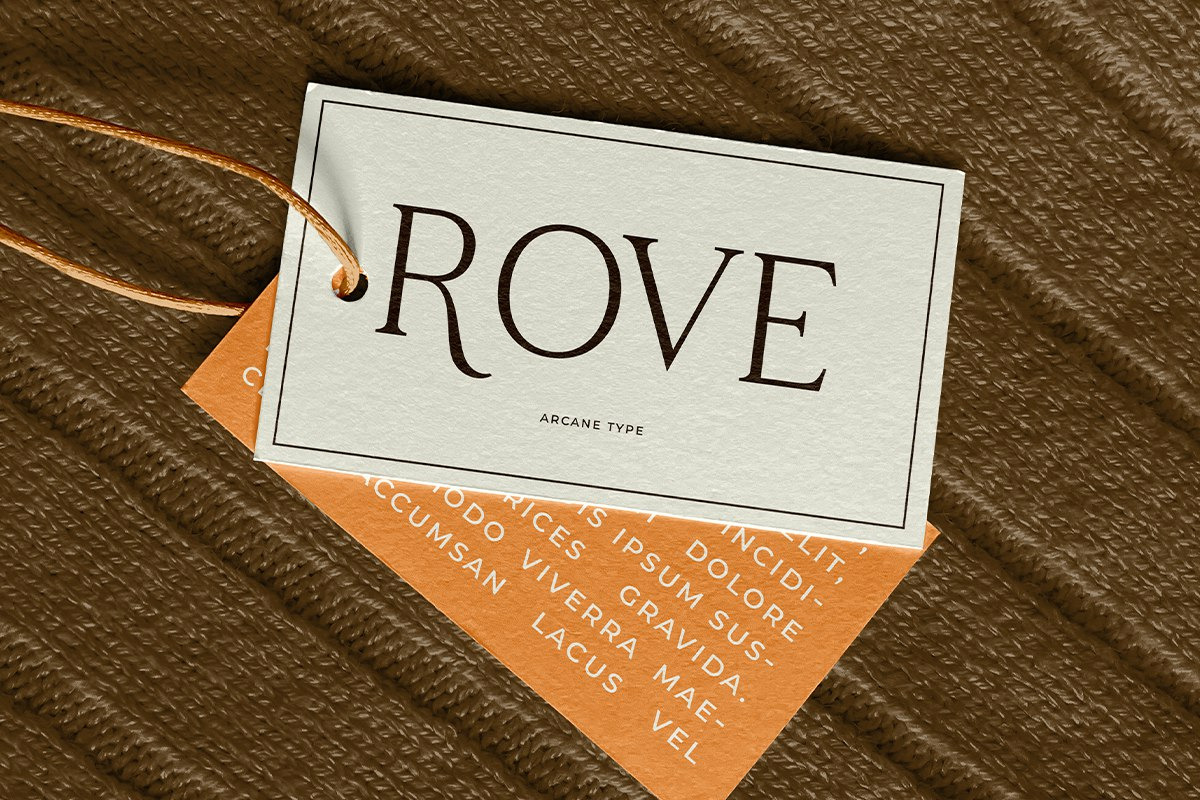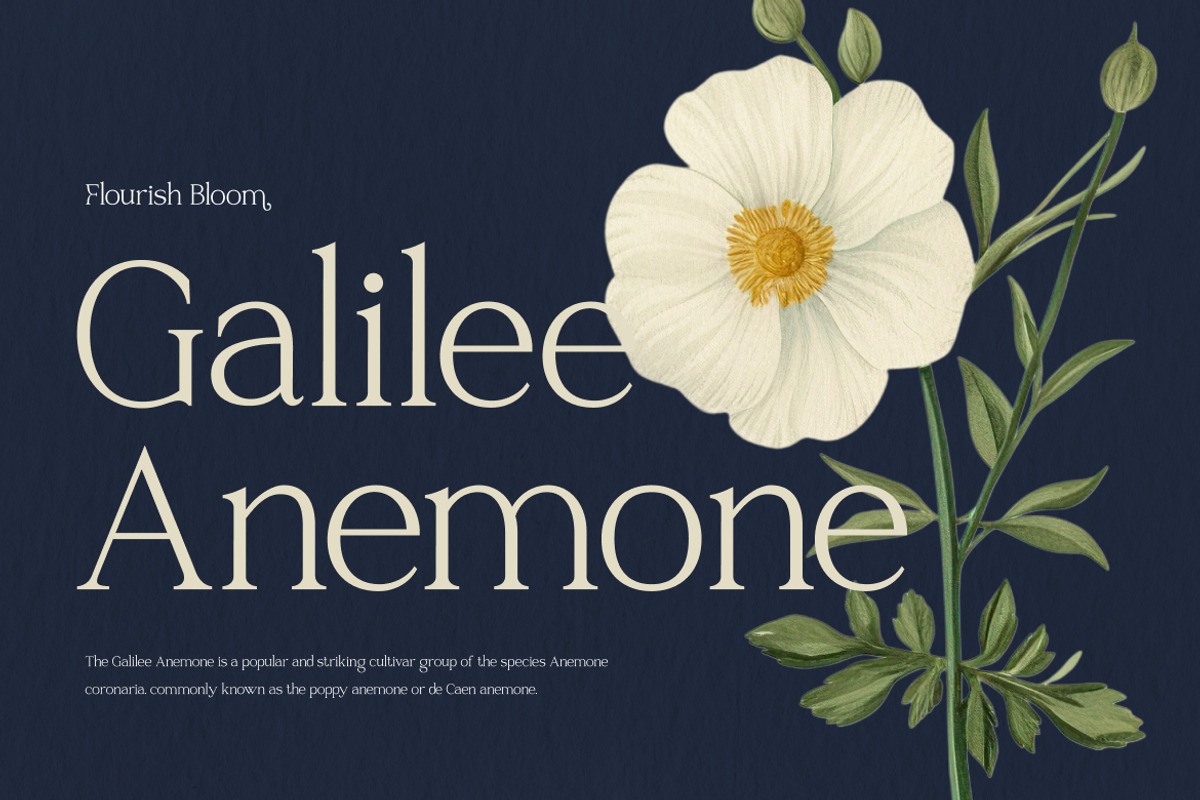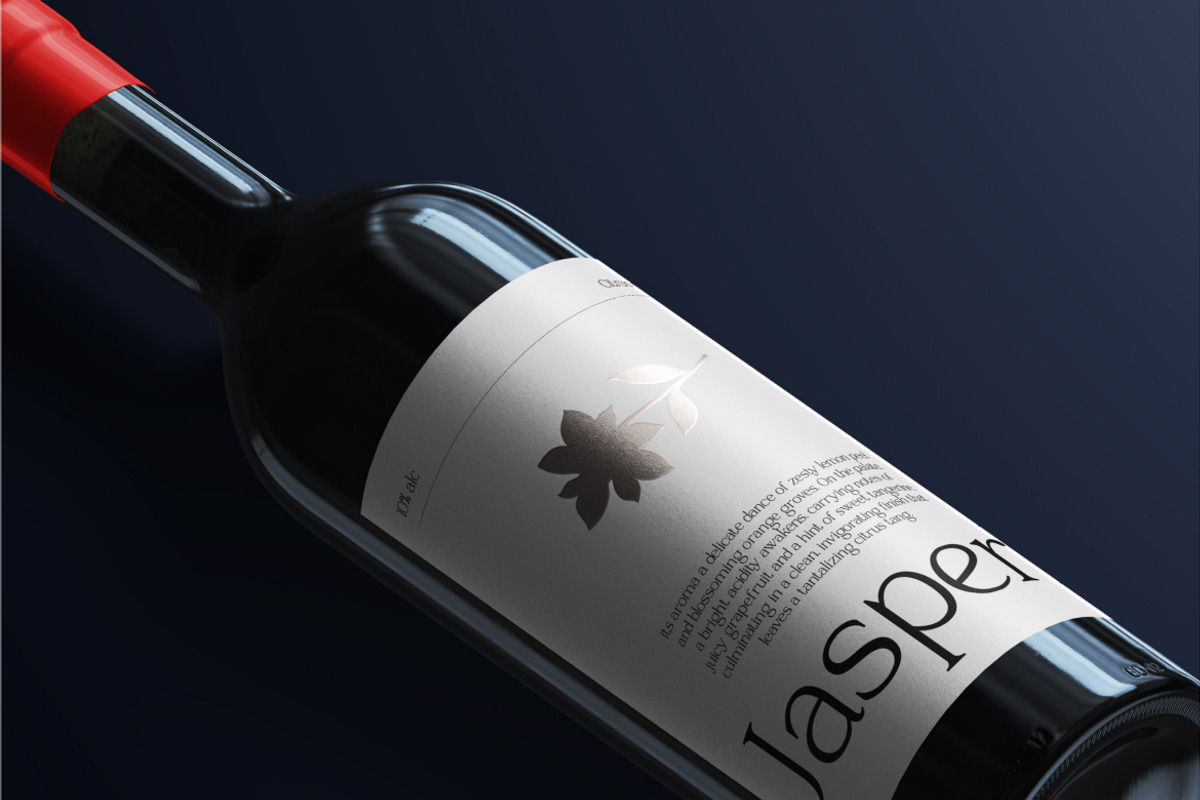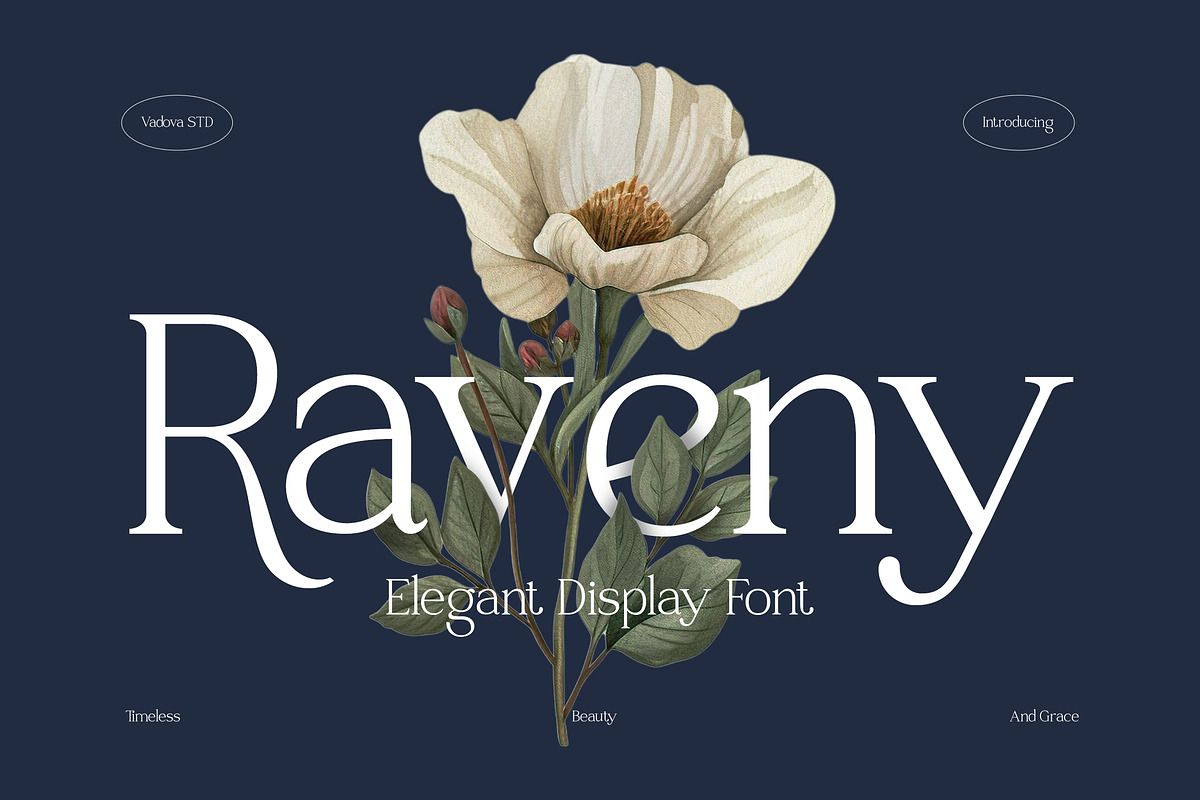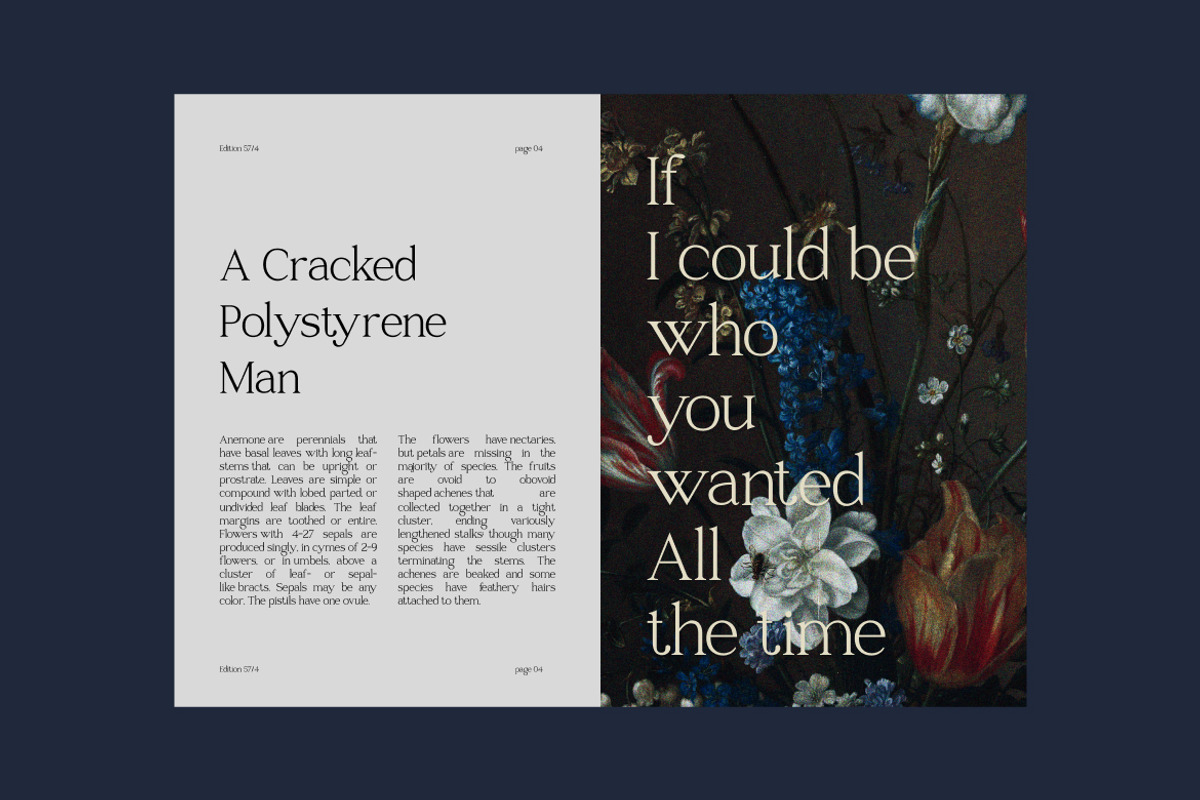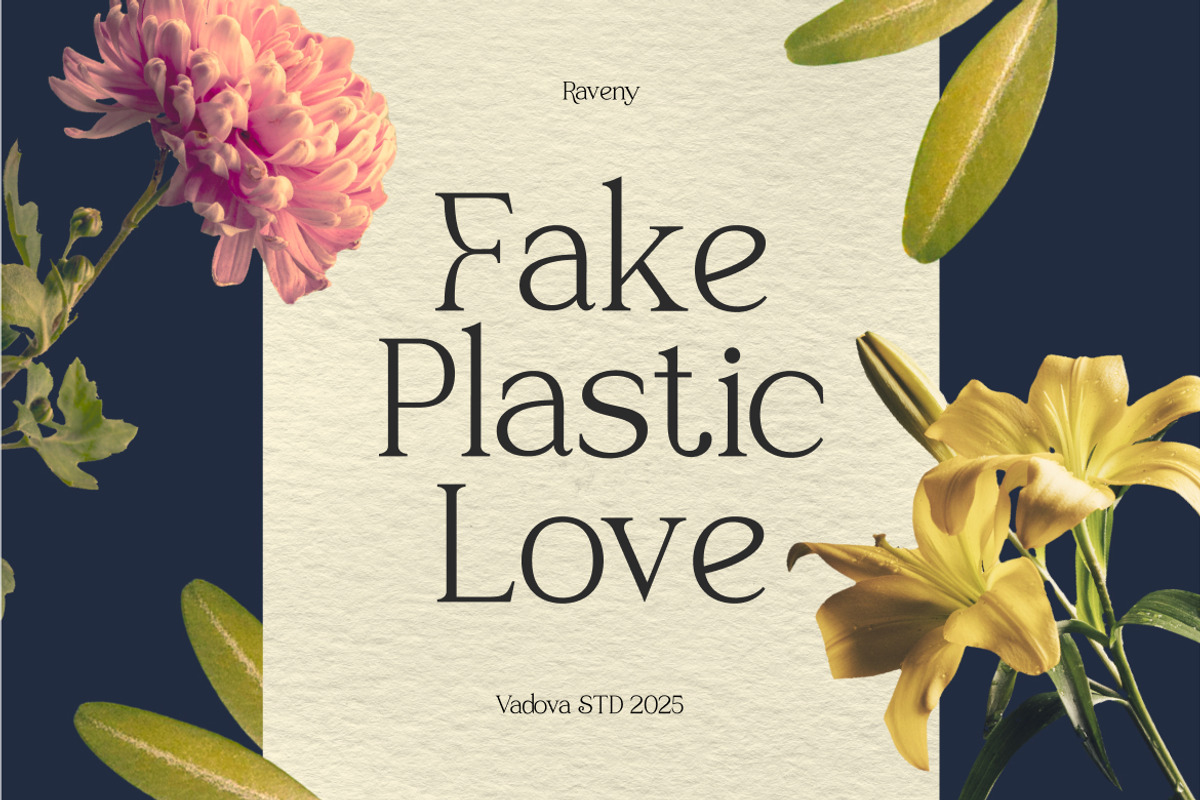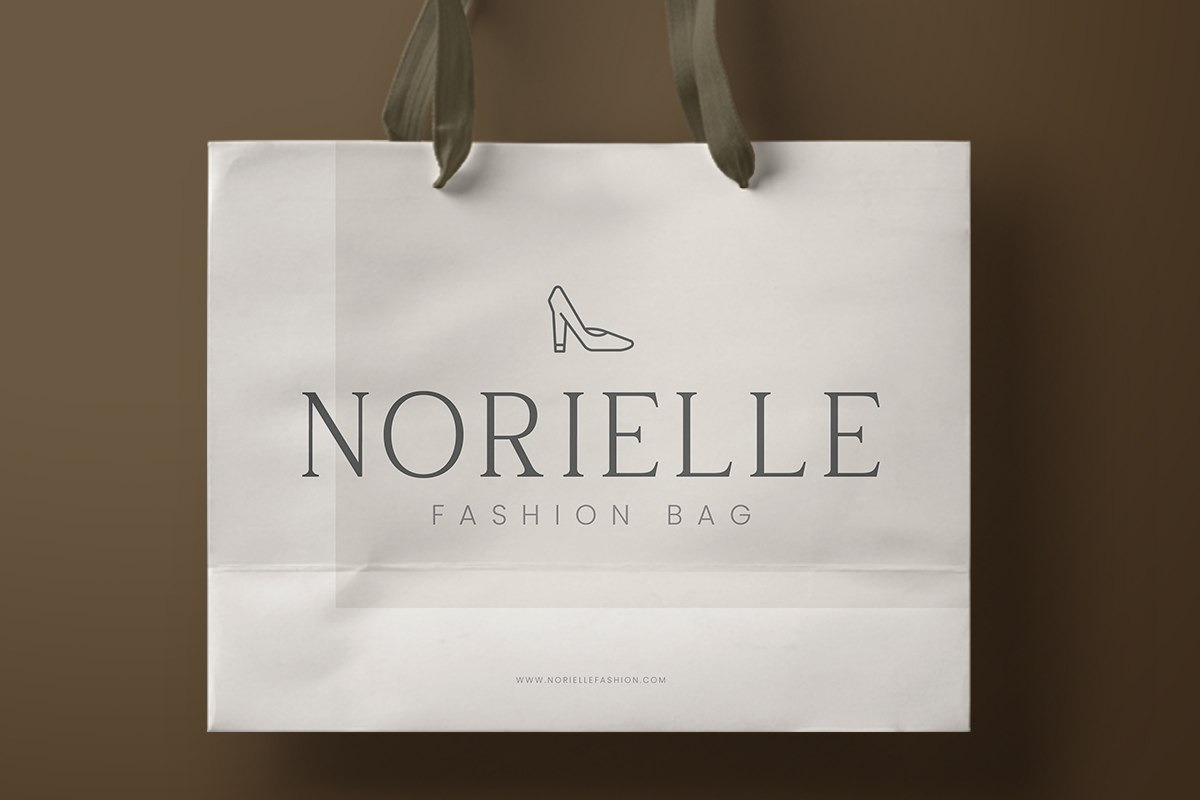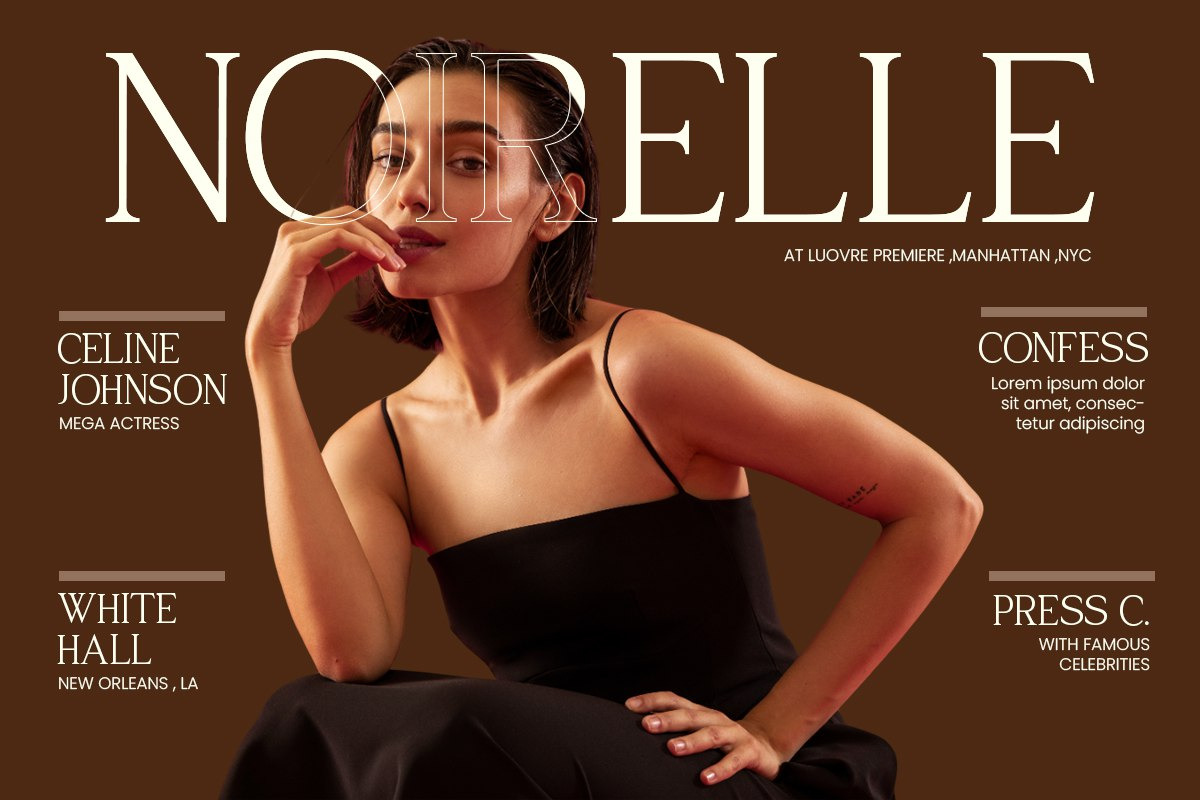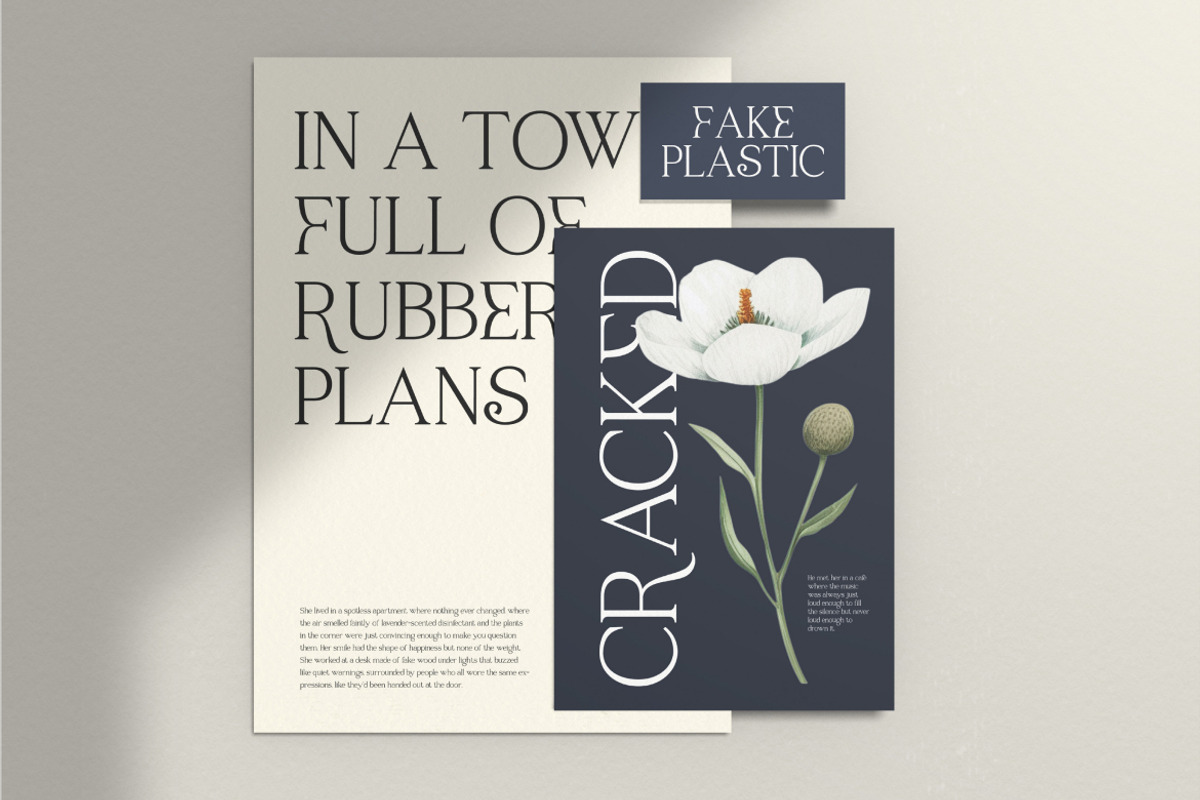
Raveny Modern Elegant Serif
Step into the world of timeless elegance with Raveny, a modern serif font that combines the grace of classic typography with the freshness of contemporary design. Each letterform is carefully crafted to exude refinement, beauty, and confidence, making Raveny the ultimate choice for designers who want to create a lasting impression.
What Makes Raveny Special:
Timeless charm – inspired by the elegance of classic serif lettering.
Modern refinement – clean lines balanced with graceful curves.
Versatile elegance – strong in headlines, delicate in branding.
Premium feel – perfect for projects that demand sophistication.
Best Uses for Raveny:
Luxury fashion branding & beauty identity
Editorial design, lifestyle magazines & books
Wedding invitations, save-the-date & stationery
Elegant logo design & monogram projects
High-end packaging for perfume, jewelry & cosmetics
Social media campaigns that need a refined voice
Modern elegant serif style
High contrast details with graceful strokes
Perfect readability in large formats
Balanced between bold authority and soft femininity
A design that embodies beauty, grace, and modern luxury
Let Raveny elevate your work into a statement of style and sophistication. With its blend of classic romance and modern minimalism, this font is not just type—it’s a design experience.